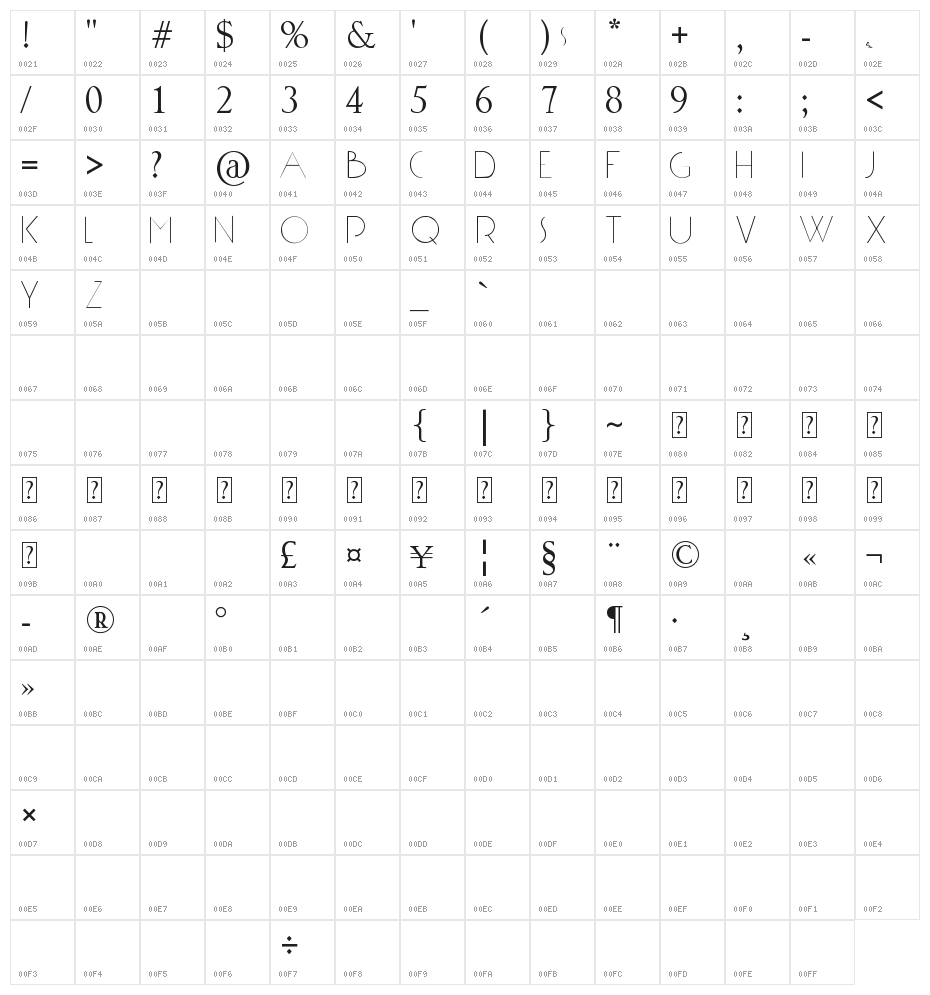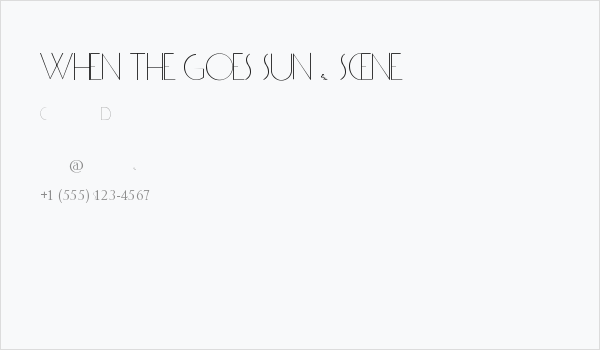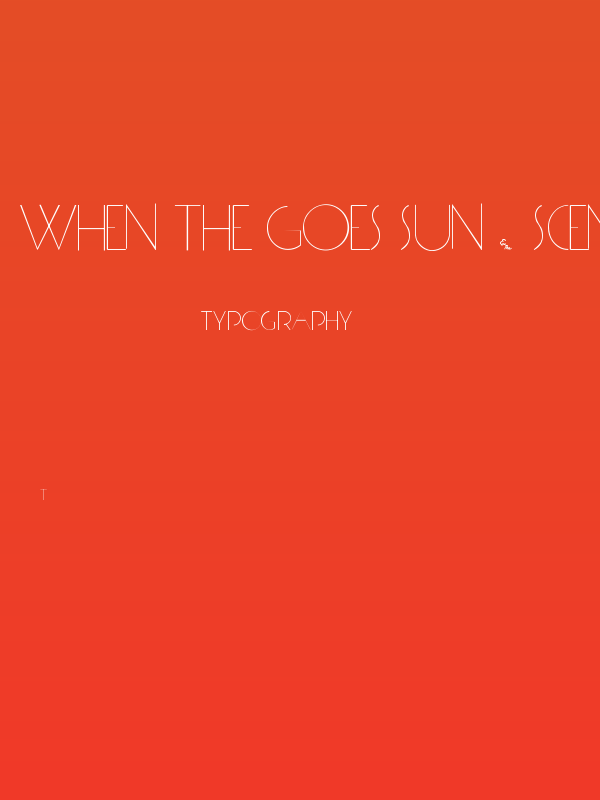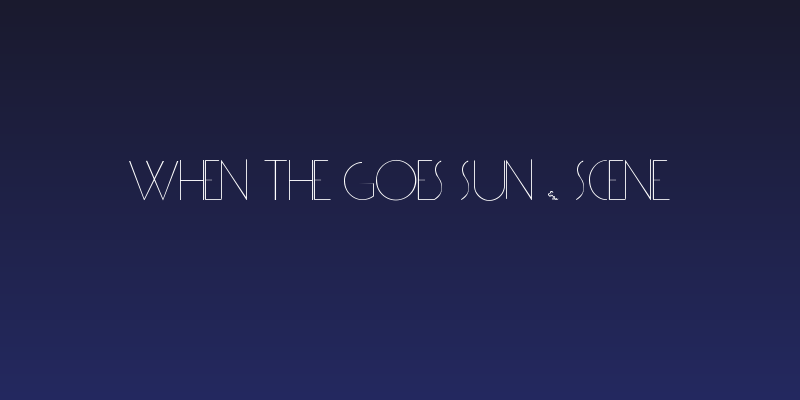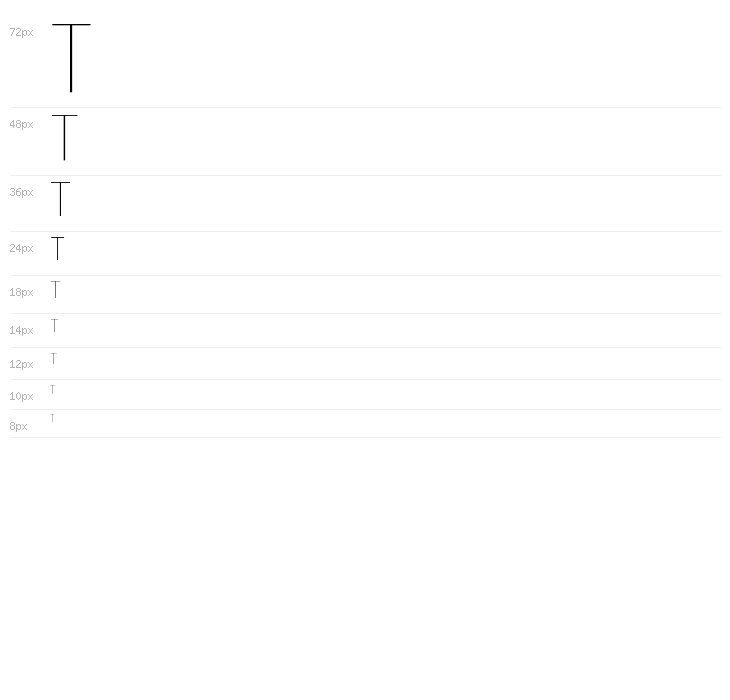
WHEN THE GOES SUN . SCENE Font
WHEN THE GOES SUN . SCENE Description
This font features a unique and elegant design with a modern twist. The uppercase letters are characterized by thin, elongated strokes with a geometric influence, creating a sophisticated and stylish appearance. The numerals and special characters maintain a consistent style, with clean lines and a balanced structure. The overall aesthetic is sleek and contemporary, making it suitable for a variety of design applications.